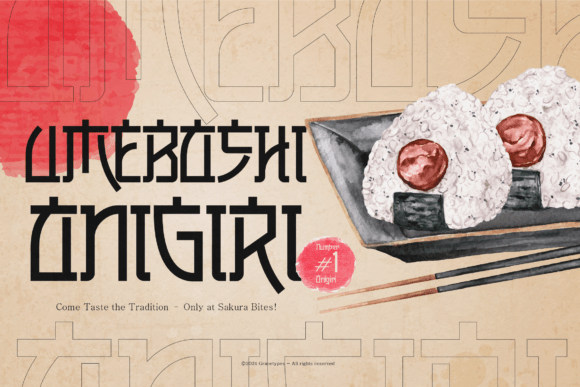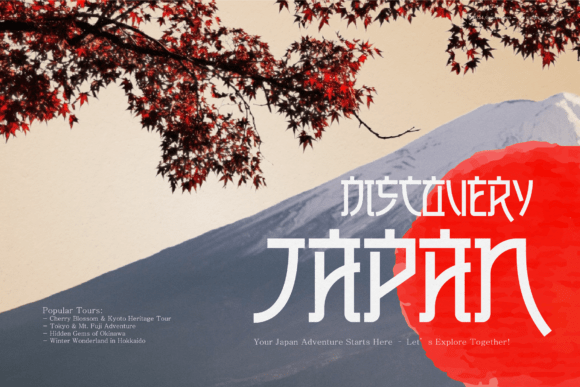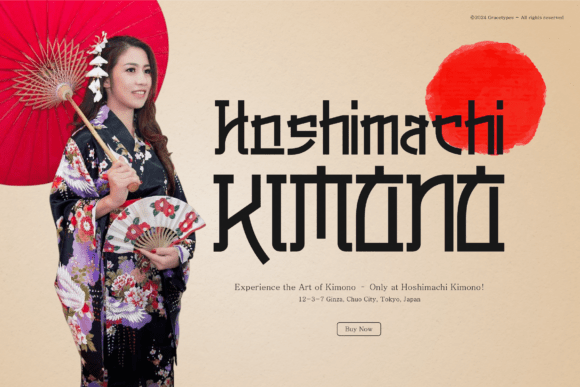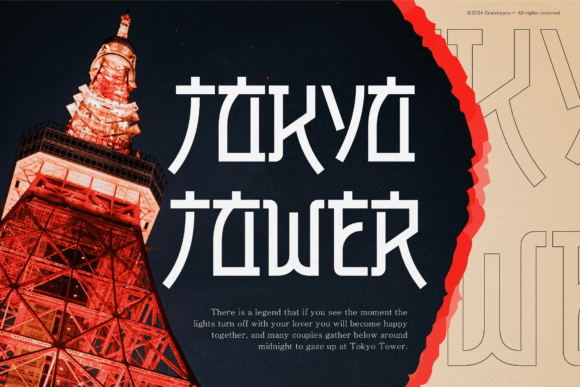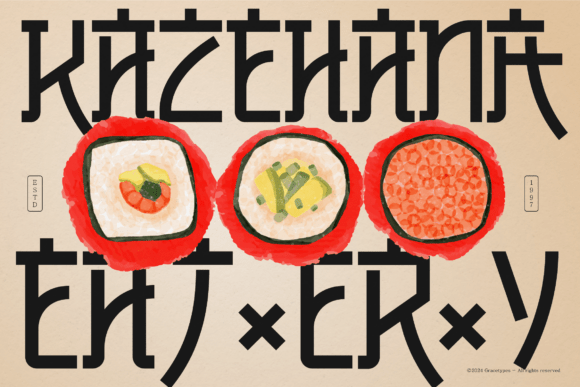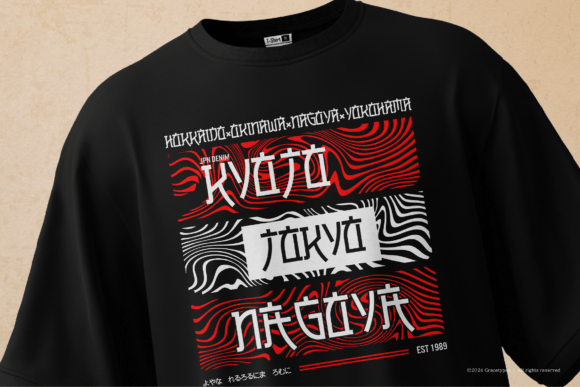
Introduction to Nettore Font
Nettare is a bold and artistic typeface inspired by traditional Japanese calligraphy and modern geometric design.
Its sharp, structured strokes and cultural aesthetic make it perfect for branding, posters, gaming, apparel, and any project that needs an Eastern-inspired touch With over 260+ glyphs, ligatures, and alternates, Nettare offers versatility while maintaining its striking, authentic appeal.
Key Features of Nettore Font
Why Choose Nettore Font?